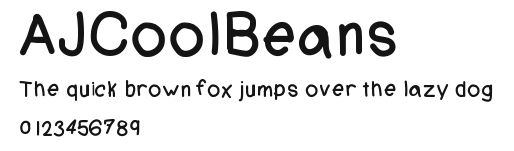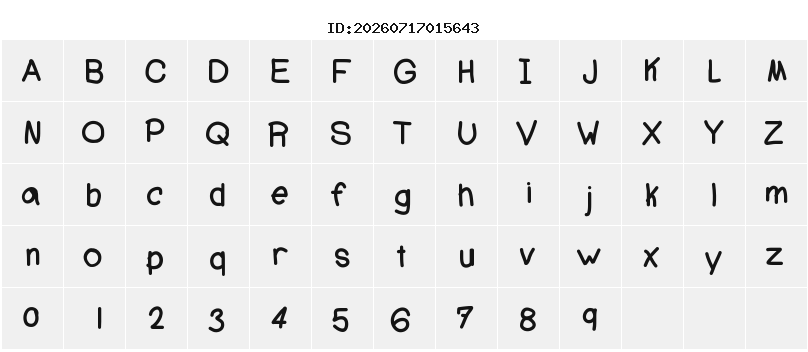
• Font Name: AJCoolBeans
• Full Font Name: AJCoolBeans
About AJCoolBeans.ttf
AJCoolBeans.ttf is a modern, elegant sans-serif font designed for ultimate readability and visual harmony. Perfect for branding, headlines, web design, and print materials.